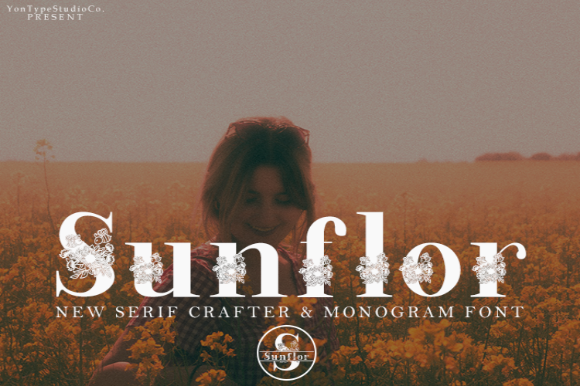
Behold, the Sunflor Font: A Typographic Masterpiece Awaiting Your Creative Touch
In a world saturated with visual noise, your designs deserve a font that whispers elegance, simplicity, and timeless beauty. Enter Sunflor, the serif font that captures the essence of minimalism and sophistication. Crafted with meticulous attention to detail by the talented artisans at YonTypeStudio.Co, Sunflor is not just a font; it's an artistic expression, a tool that transforms your words into captivating visual stories.
Immerse yourself in the world of Sunflor and discover a font that seamlessly blends classic serif strokes with a modern, understated aesthetic. Its clean lines and subtle curves evoke a sense of sophistication that effortlessly elevates any project you undertake. Whether you're designing logos, branding materials, wedding invitations, or simply creating stunning social media graphics, Sunflor will add a touch of understated elegance that commands attention.
With Sunflor, you're not just downloading a font; you're unlocking a font that's as versatile as your imagination. Its inherent versatility allows it to effortlessly adapt to a myriad of design styles, from traditional to contemporary, from whimsical to formal. Experiment with Sunflor in your next project and witness how it effortlessly elevates your designs, transforming them into captivating works of art.
But Sunflor is more than just a visually stunning font; it's a font that speaks to the heart. Its delicate serifs and flowing curves create a sense of warmth and approachability that invites readers to connect with your message. Whether you're crafting heartfelt letters, designing heartwarming invitations, or creating engaging social media posts, Sunflor will add a touch of emotional resonance that captivates your audience.
So, if you're seeking a font that transcends the mundane and embraces the extraordinary, look no further than Sunflor. Its timeless beauty, unparalleled versatility, and emotional depth make it the perfect choice for designers, marketers, and creative professionals who demand excellence in their work. Download Sunflor today and embark on a design journey like no other, where every project becomes a masterpiece.